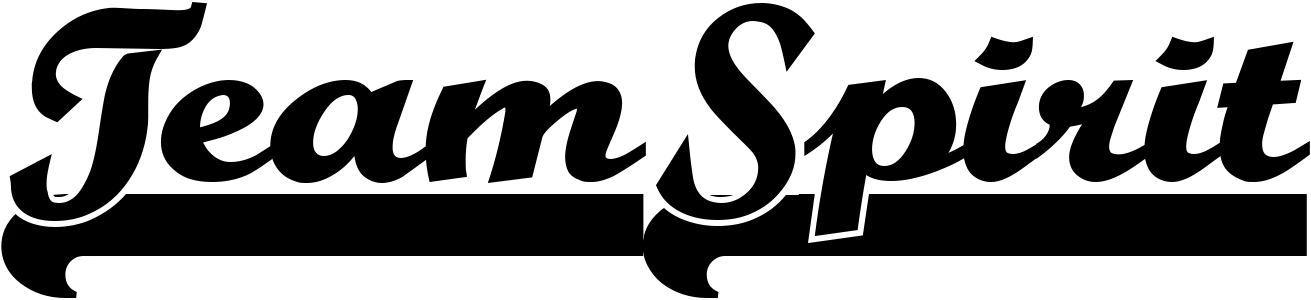
TeamSpirit is a distinct and visually engaging font designed by the talented Nick Curtis, who is noted for his ability to inject a vibrant character into his typographic creations. TeamSpirit is no exception, expertly crafted to embody the energy, unity, and dynamic rhythm of sportsmanship and collective effort. Its design is not just a nod to the athletic world; it also captures the essence of vintage typography, blending nostalgia with the excitement of competition and camaraderie.
The font features bold, rounded letters that convey a sense of motion and enthusiasm, mirroring the vivacity found in team sports and group endeavors. The characters are designed to look robust and sturdy, yet there's an underlying playfulness that makes TeamSpirit accessible and friendly. This duality ensures its suitability across a broad spectrum of applications, from sports team logos and event posters to school projects and casual wear designs.
What sets TeamSpirit apart is its ability to evoke a specific atmosphere—one of energy, optimism, and togetherness—while remaining highly legible and functional. Its character set supports a variety of uses, making it a versatile tool in a designer’s arsenal. Whether it's employed in large display settings or for smaller text, it retains its distinctive personality, making any message stand out with a hint of whimsy and a lot of heart.
TeamSpirit, through Nick Curtis’s design prowess, becomes more than just a font; it’s a celebration of unity, a cheer from the crowd, a high-five among teammates. It invites designers to not only capture attention visually but to imbue their work with the infectious spirit of teamwork and joy found in collective achievement. This font is a testament to the power of design in evoking emotion and creating connections, making it a cherished choice for projects that aim to inspire, unite, and energize.